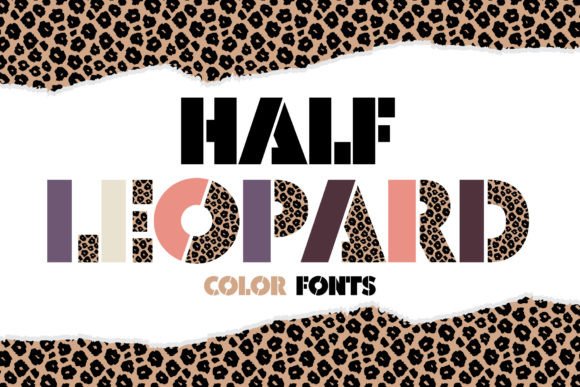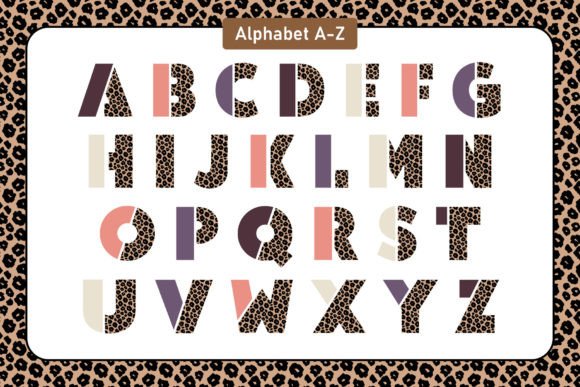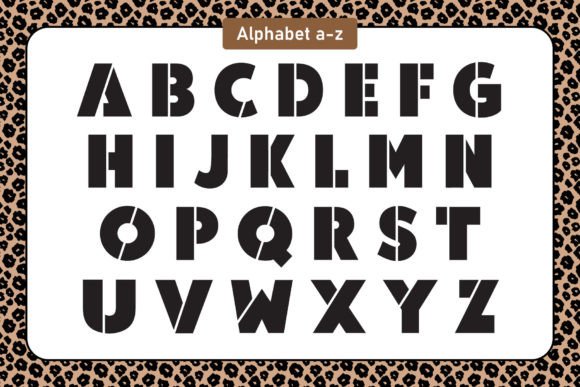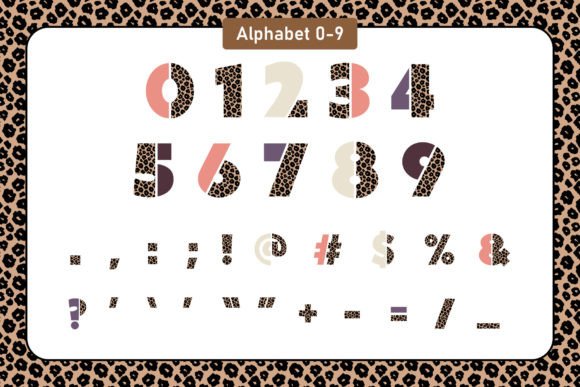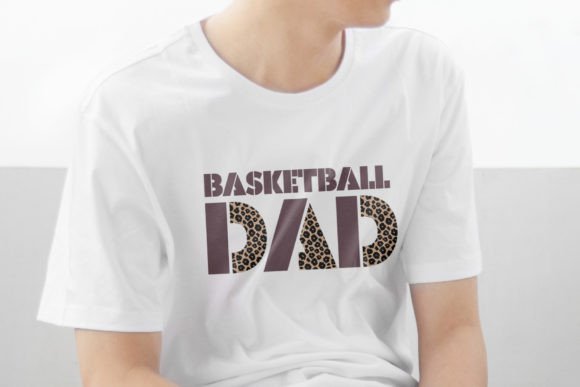
About Half Leopard Font
Introducing Half Leopard, a cool and fun decorative color font that will add a touch of wildness and uniqueness to your designs. With its eye-catching leopard print pattern, Half Leopard is perfect for a wide range of creative projects.
Whether you’re designing t-shirts, tote bags, hats, stickers, wedding materials, logos, cards, or even inspirational quotes, Half Leopard will make your creations stand out from the crowd. Its playful and adventurous style will bring a sense of excitement and energy to any design.
The distinctive leopard print pattern of Half Leopard adds a bold and fierce element to your designs, making them visually captivating and attention-grabbing. It’s an ideal choice for projects that aim to make a statement or exude a sense of confidence and individuality.
Unleash your creativity and let Half Leopard be your companion in designing remarkable and unforgettable pieces. The font’s decorative elements and unique style will lend a touch of wildness and personality to your designs, making them truly stand out.
Get ready to unleash your inner adventurer and create designs that roar with creativity and style. Half Leopard is here to add that touch of wildness and excitement to your projects. Let your imagination run wild with Half Leopard and make your creative ideas come to life!